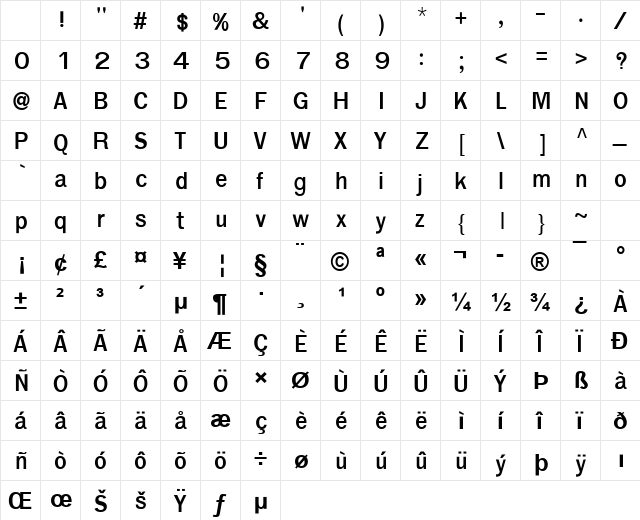
Complete Garuda Bold glyph index. Displaying only characters natively supported by Garuda Bold font.
Garuda is a composed and adaptable typeface that performs quietly and consistently across a wide range of design contexts. Its bold stroke weight gives it real presence on the page.